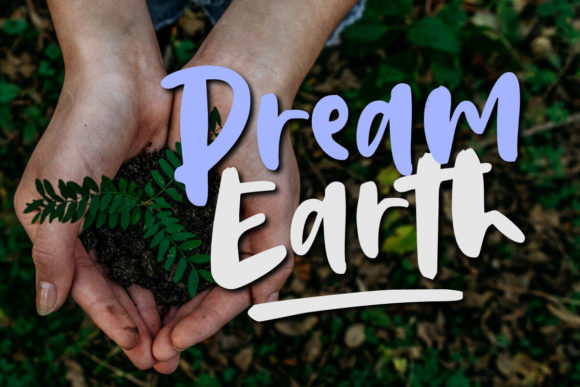
Dive into the world of limitless creativity with Dream Earth Font, a captivating script font designed to transform your designs into masterpieces. Unleash your imagination and embrace the carefree spirit of this brushed handwritten font. Dream Earth is the perfect companion for your creative endeavors, whether you're a seasoned designer or just starting your artistic journey.
Get ready to make a statement with Dream Earth's unique charm, perfect for adding a touch of whimsy to your t-shirt designs, sportswear, logos, advertisements, or clothing line. Its versatility knows no bounds, allowing you to infuse your projects with a personal touch that resonates with your audience.
Imagine the possibilities as Dream Earth's graceful strokes bring your designs to life. Its relaxed, flowing nature creates a sense of movement and energy that captures the eye and draws viewers into your creations. With Dream Earth as your font of choice, you'll have the power to evoke emotions, convey messages, and establish a strong connection with your target audience.
Step into the spotlight and let Dream Earth elevate your designs to new heights. Its cinematic appeal makes it the perfect font for movie posters, titles, and promotional materials. Create a sense of intrigue and adventure that leaves your audience on the edge of their seats. Dream Earth's ability to evoke emotions will leave a lasting impression, ensuring your designs are remembered long after they're seen.
Don't settle for ordinary fonts that blend into the background. Embrace the extraordinary with Dream Earth Font. Its distinctive style and undeniable charm will set your designs apart from the crowd, leaving a lasting impression on your audience. So why wait? Embark on a creative journey with Dream Earth today and unlock the true potential of your designs. Let your imagination soar and create designs that captivate and inspire!